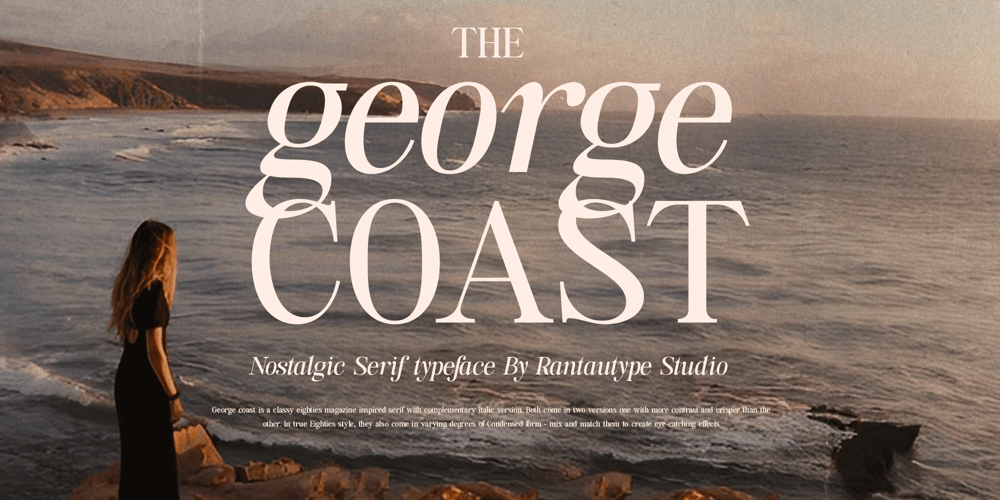
George Coast
George Coast font
George Coast Font Family was designed by Yudi Pratama Chandra and published by RantauType. George Coast contains 2 styles and family package options. George coast – is a classy eighties magazine inspired serif with complementary italic version. Both come in two versions one with more contrast and crisper than the other. In true Eighties style, they also come in varying degrees of Condensed form – mix and match them to create eye-catching effects. I’ve also love combination the reguler and italic make cool and nostalgic. George coast included multilingual charactersGeorge coast – perfectly suitable lifestyle design such as logos, title, and magazine, quotes, branding and more. Now you can choice george to make a beuatiful design.Features Standar character A-Z and a-z Numberial and Functional Ligature Works on PC & Mac Simple installations Accessible in Adobe Illustrator, Adobe Photoshop, Adobe InDesign, even work on Microsoft Word. Fonts include Multilingual Support for: Afrikaans, Albanian, Asu, Basque, Bemba, Bena, Breton, Chiga, Cornish, Dutch, English, Estonian, Filipino, Finnish, Friulian, Galician, Gusii, Indonesian, Irish, Italian, Kabuverdianu, Kalenjin, Kinyarwanda, Luo, Luxembourgish, Luyia, Machame, Makhuwa-Meetto, Makonde, Malagasy, Manx, Morisyen, North, Ndebele, Nyankole, Oromo, Portuguese, Quechua, Romansh, Rombo, Rundi, Rwa, Samburu, Sango, Sangu, Scottish, Gaelic, Sena, Shambala, Shona, Soga, Somali, Spanish, Swahili, Swedish, Swiss, German.Thank you for your purchase!Hope you enjoy with our font!